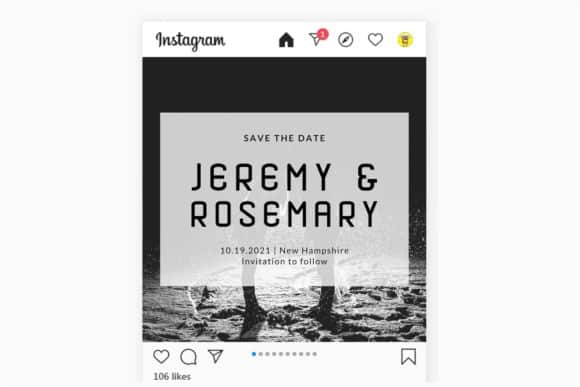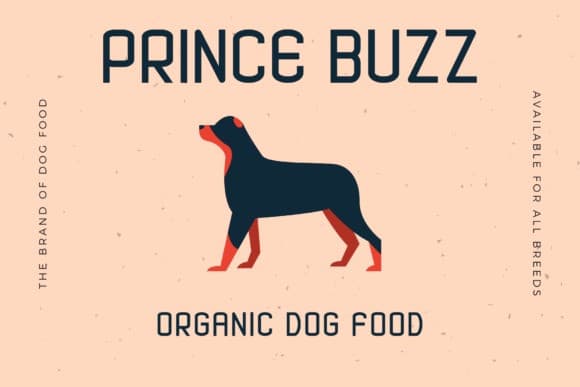
Nero Baruno Display Font
Nero Baruno Display Font is a font designed to be easy to remember in our minds. So that letters are closely related to classic and retro things. However, this font does not leave the modern impression it displays. Nero Baruno comes with a full uppercase, lowercase, numbers and punctuation + European language support. it’s perfect for logos, name card, magazine layouts, invitations, headers, or even large-scale artwork.